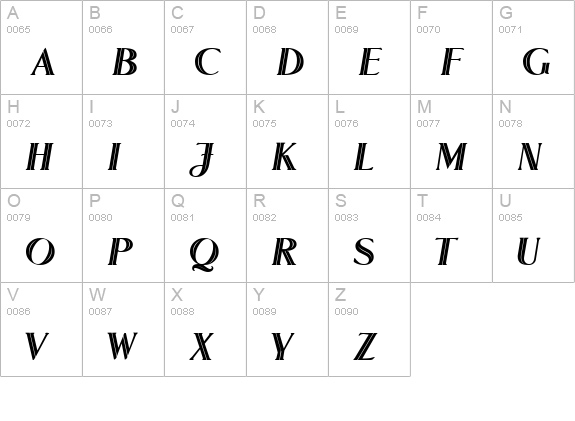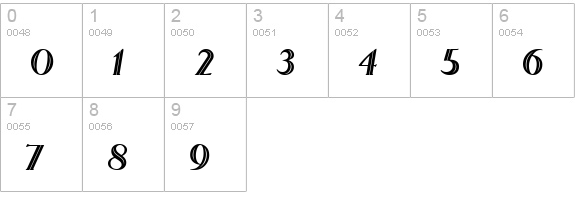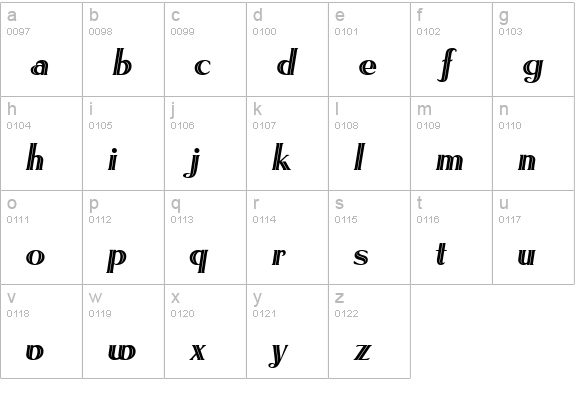
LyndseyInline Regular Font Details
LyndseyInline Regular is the standard, neutral variant in the LyndseyInline typeface family \xE2\x80\x94 well suited to general body text, paragraphs, and standard typographic work.
LyndseyInline Regular font is a sleek and modern typeface that exudes elegance and sophistication. Its clean lines and stylish curves make it perfect for a variety of design projects, from branding to editorial design. The font strikes the perfect balance between professionalism and creativity, making it versatile for both corporate and artistic purposes. One of the best features of LyndseyInline Regular font is that it is available for free download at FontsMarket.com. This means that you can easily access this high-quality font without any cost, making it a valuable addition to your font library. Whether you are a designer looking to elevate your projects or a business in need of a polished visual identity, LyndseyInline Regular font is a fantastic choice that won't break the bank. Download it today and start incorporating this stylish font into your designs!